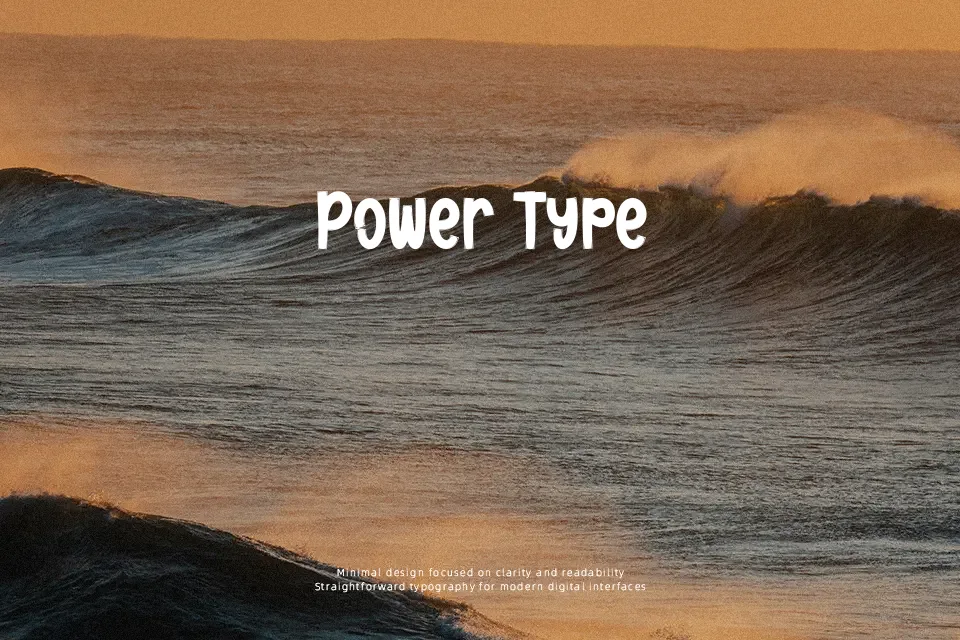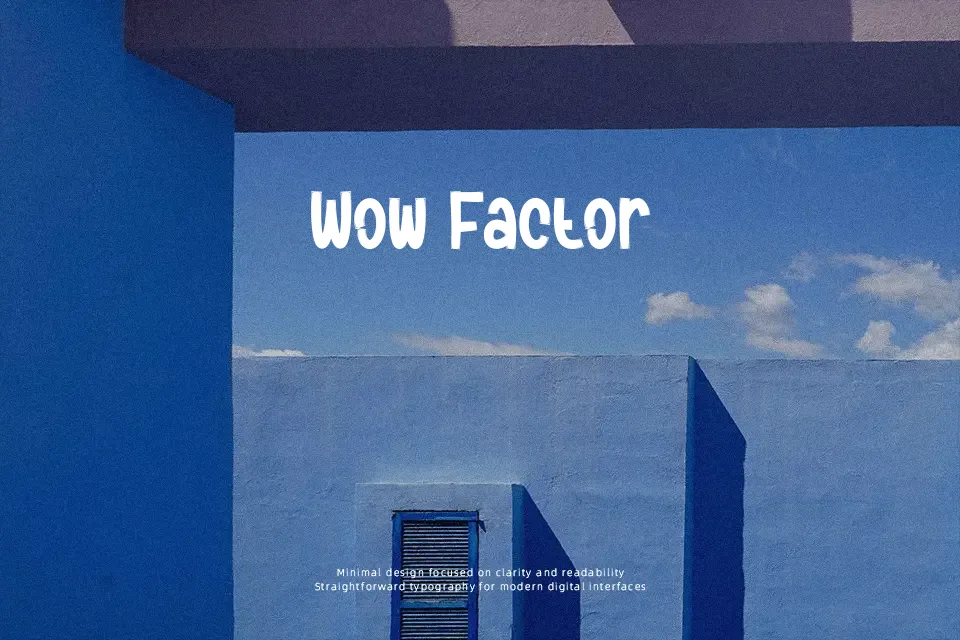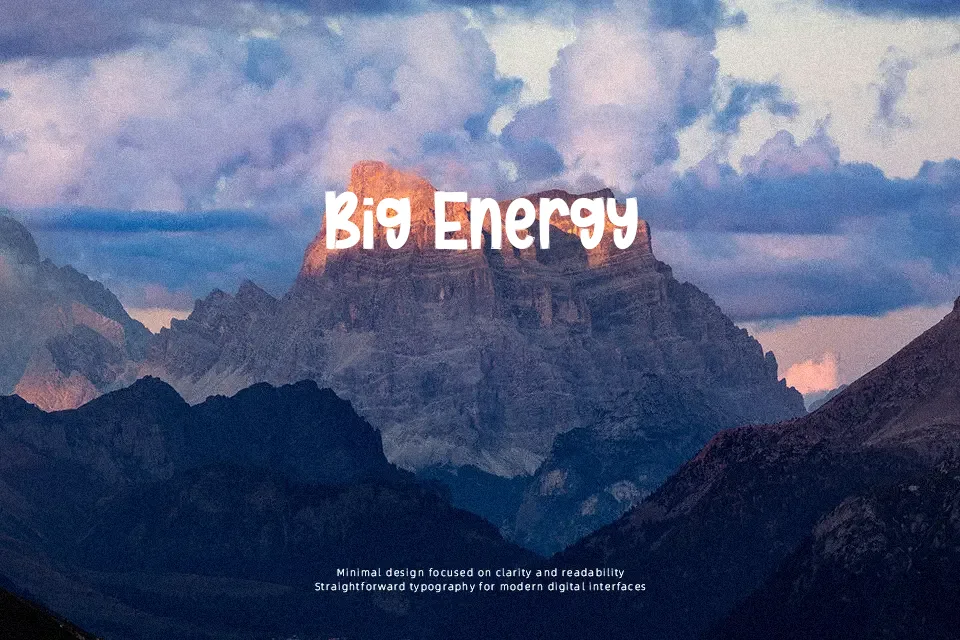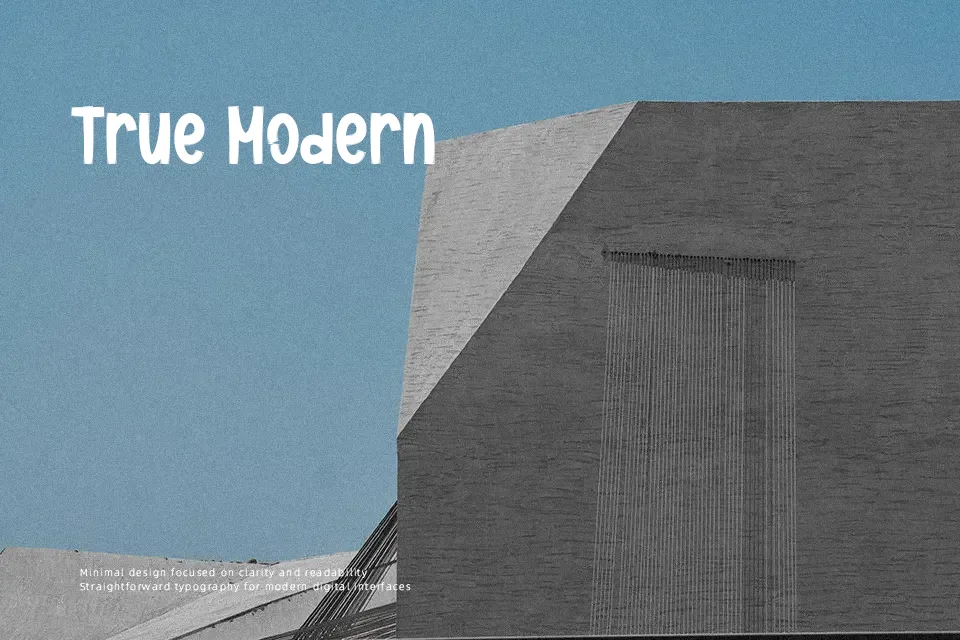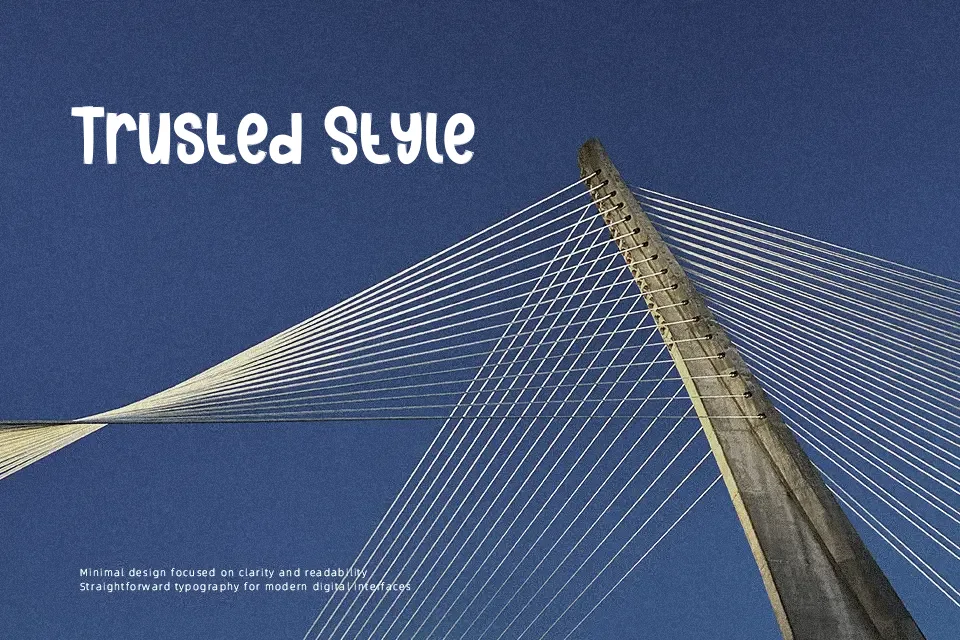
Smile Ghost Font
Smile Ghost Font features exaggerated, plump letterforms with thick strokes and softened terminals that establish an animated, approachable aesthetic. The glyphs show minimal stroke contrast and compact proportions, creating a dense rhythm that excels across large display settings. Generous outer curves balance the tight interior spacing, ensuring character forms remain distinct on bold posters, playful sticker designs, and novelty apparel graphics. However, the heavy weight and snug counters make continuous body text difficult to decipher at reduced scales. The typeface provides strong visual impact for short headlines while requiring ample white space to maintain optimal display clarity.
Best For: children book titles, animated video thumbnails, playful merchandise graphics, cartoon poster headlines
Not Ideal For: long paragraph text, corporate reports, mobile app body copy, technical documentation